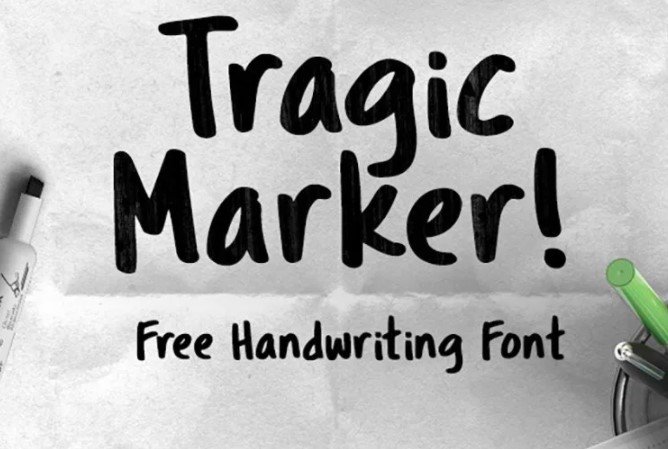
Tragic Marker Font
You can easily utilize this font for making resume designs, covers, posters, banners, headlines and lots of other projects can also be made with this font.
About Tragic Marker Font
Presenting the ideal Tragic Maker Font, a traditional marker typeface featuring natural handmade and handwriting characters, along with beautiful stylistic ligatures. It pairs perfectly with Eras Font, creating eye-catching projects that will amaze its users.
You can easily utilize this font for making resume designs, covers, posters, banners, headlines and lots of other projects can also be made with this font.
What's the Closest Font to Tragic Marker?